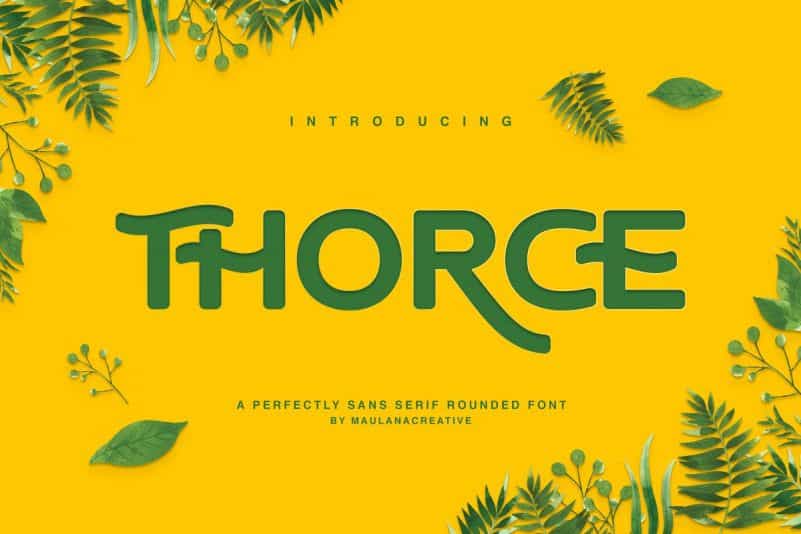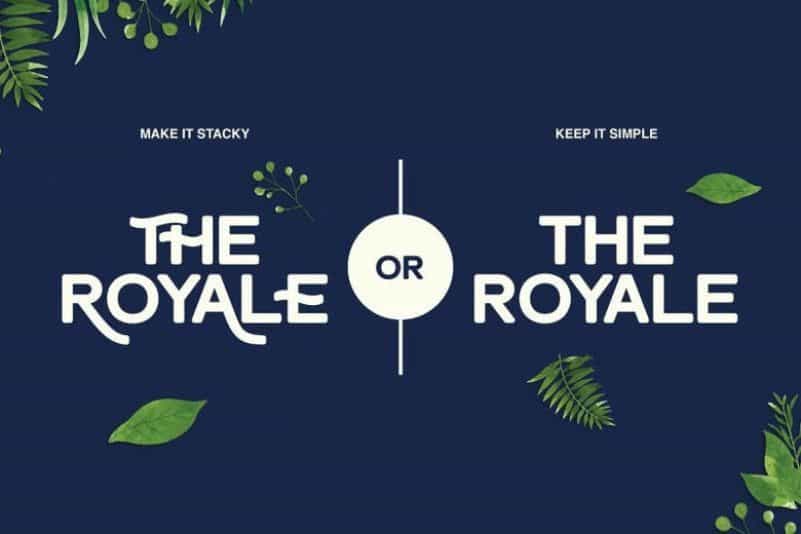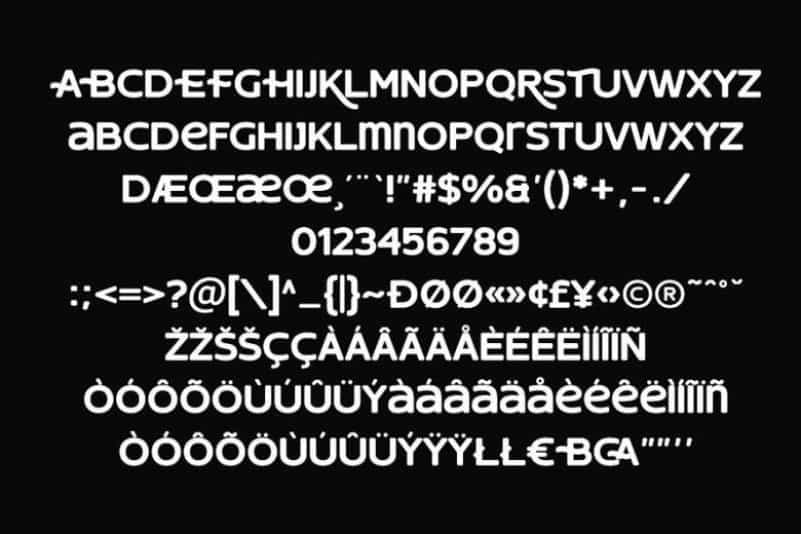
Introducing Thorce Font. Thorce Sans Font is a classy sans serif and a minimalist character!It is a typeface that is distinguished, powerful and at the same time elegant. The best way for branding, logos, magazines, films, website, headlines, titles, captions, games, apps, posters, t-shirts and more.